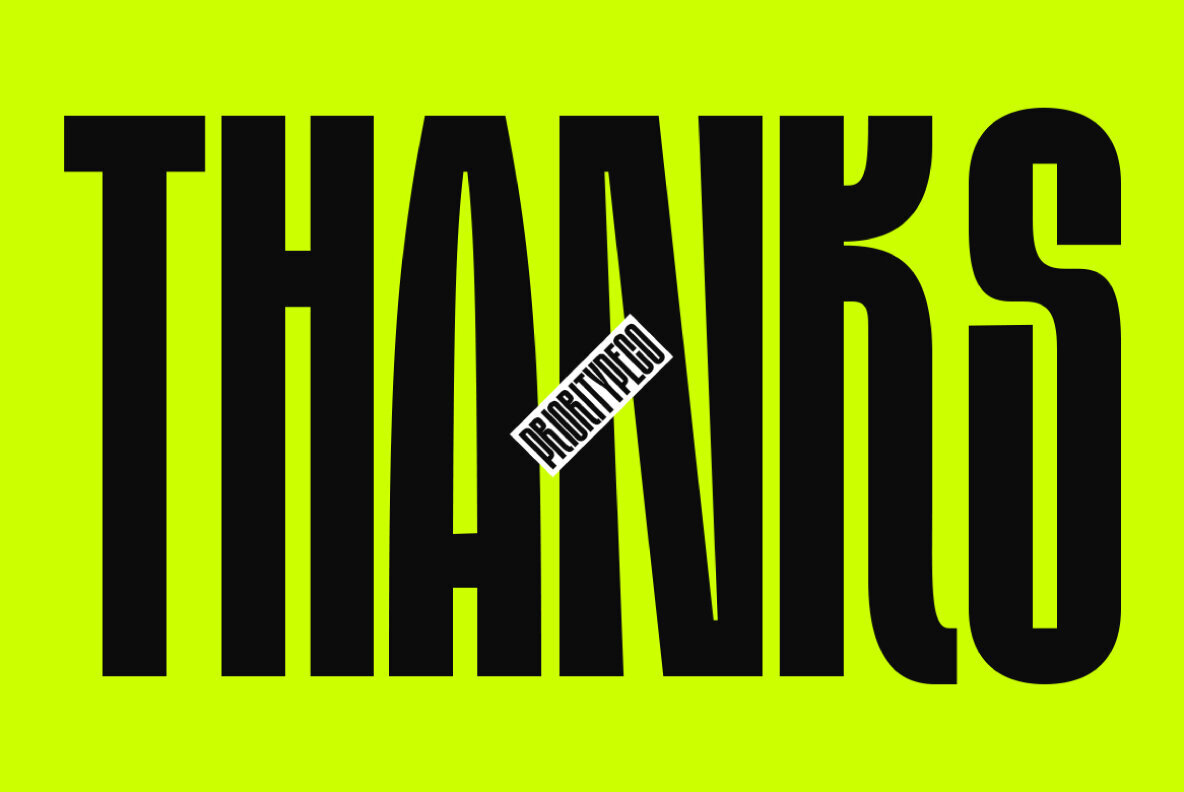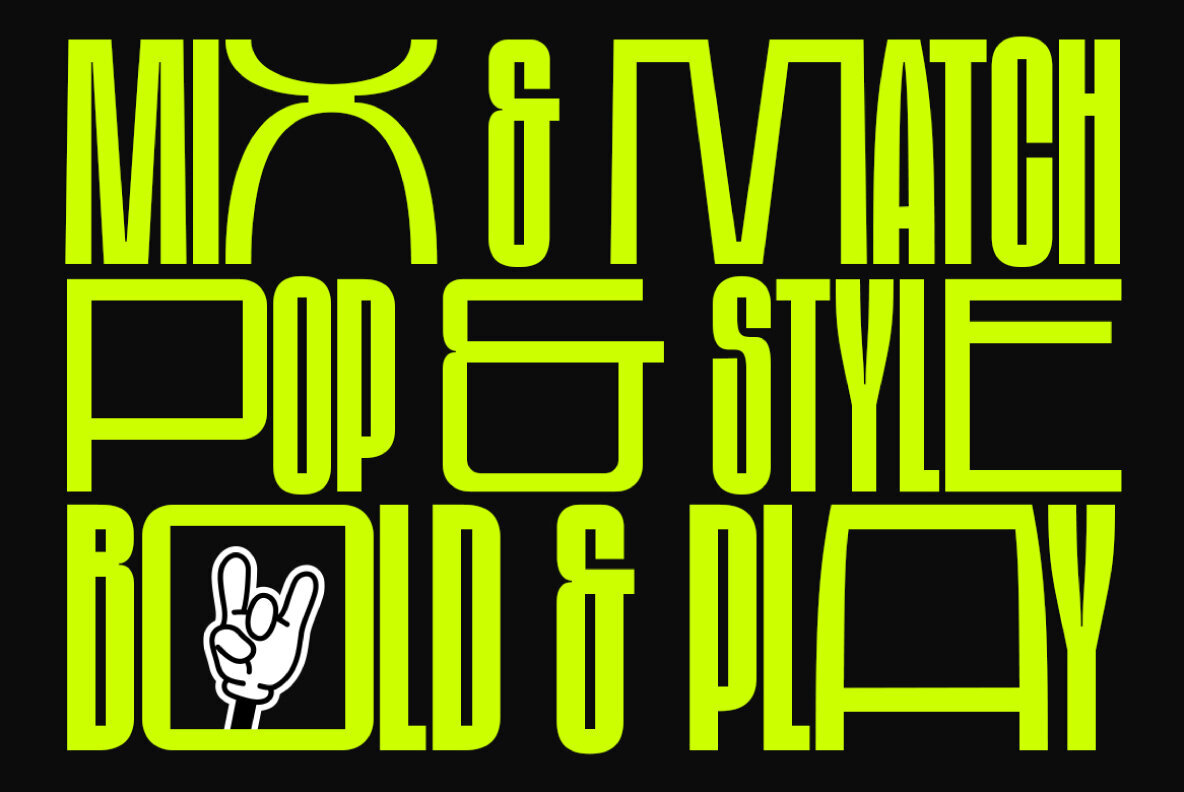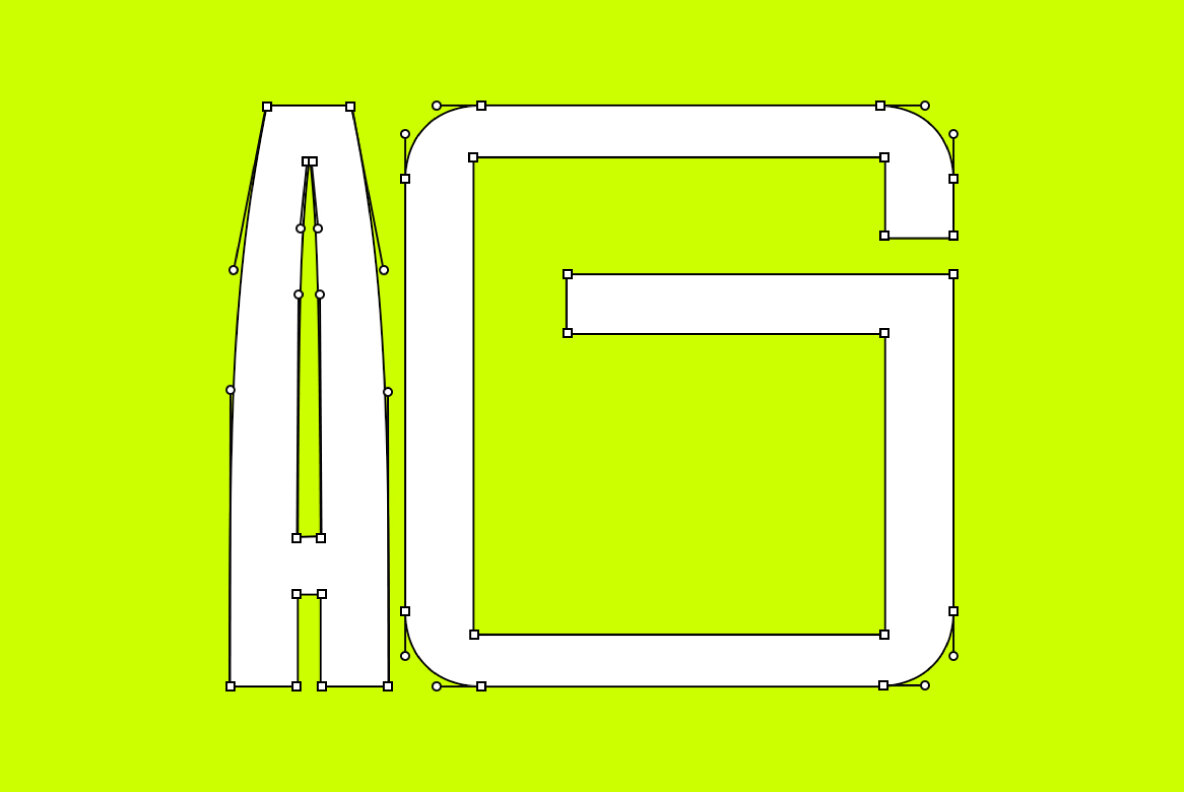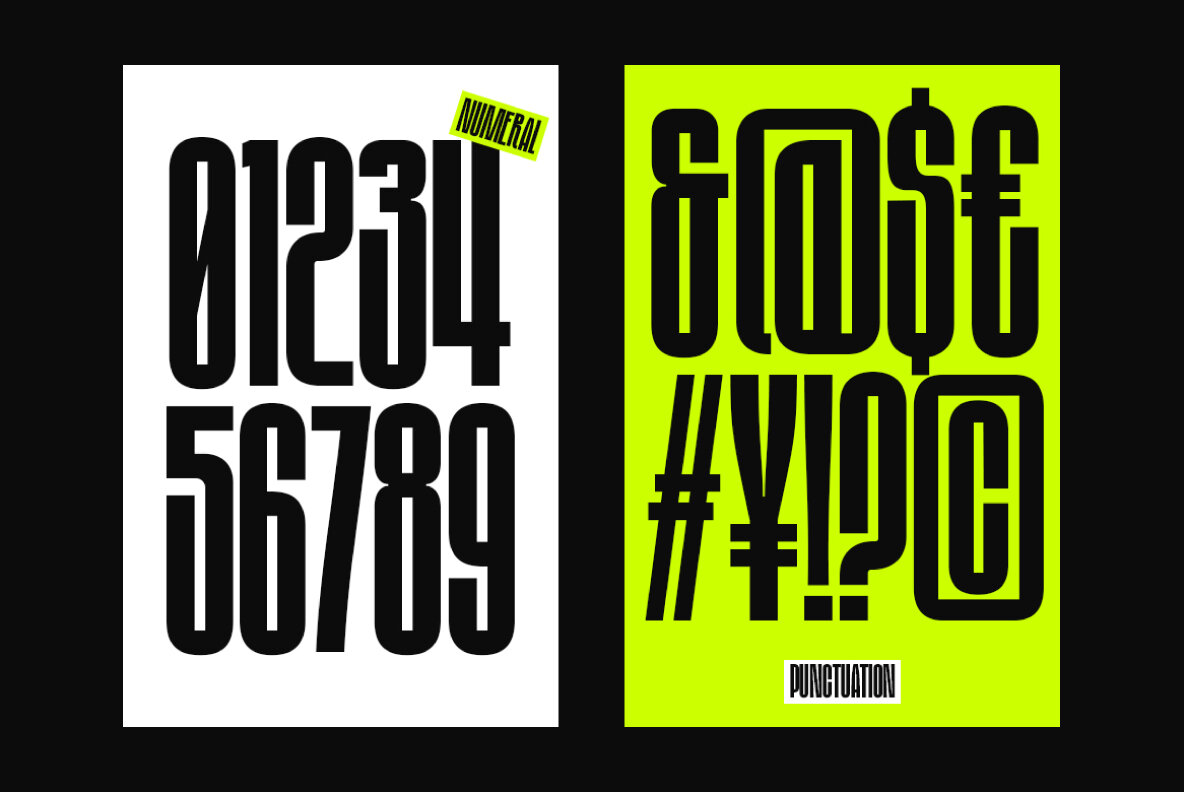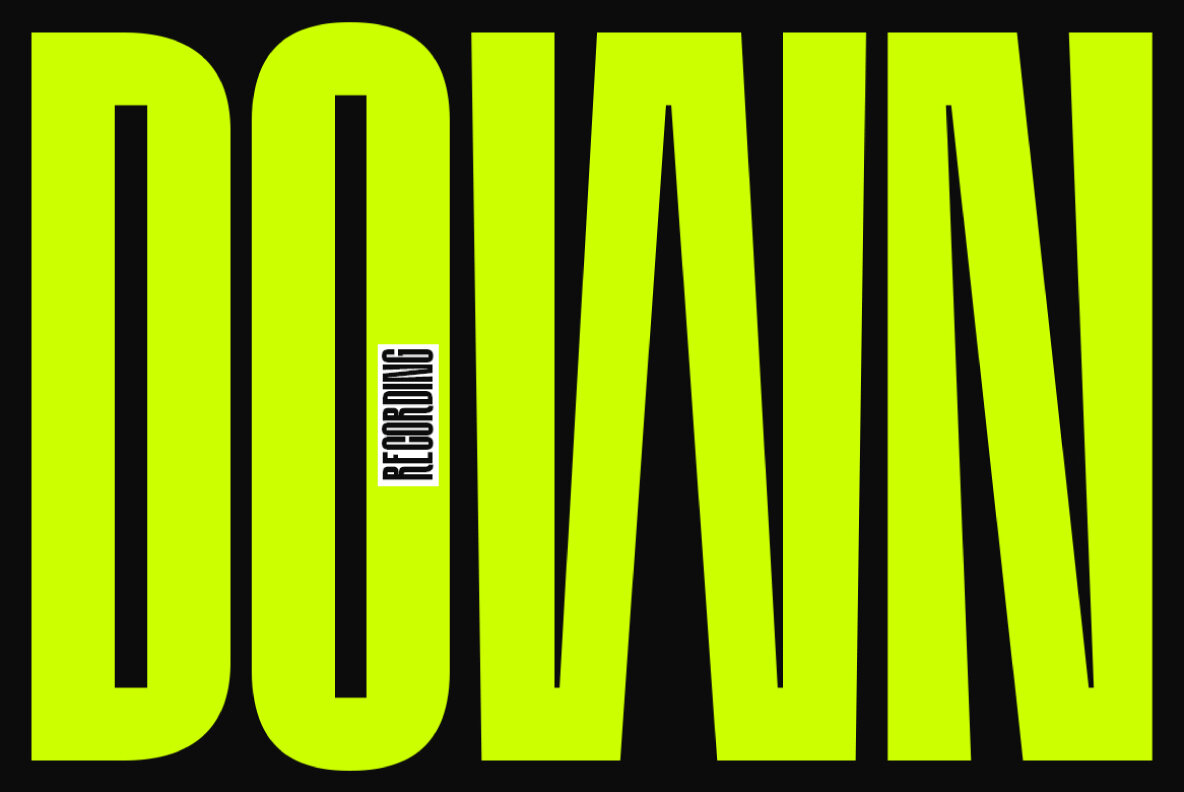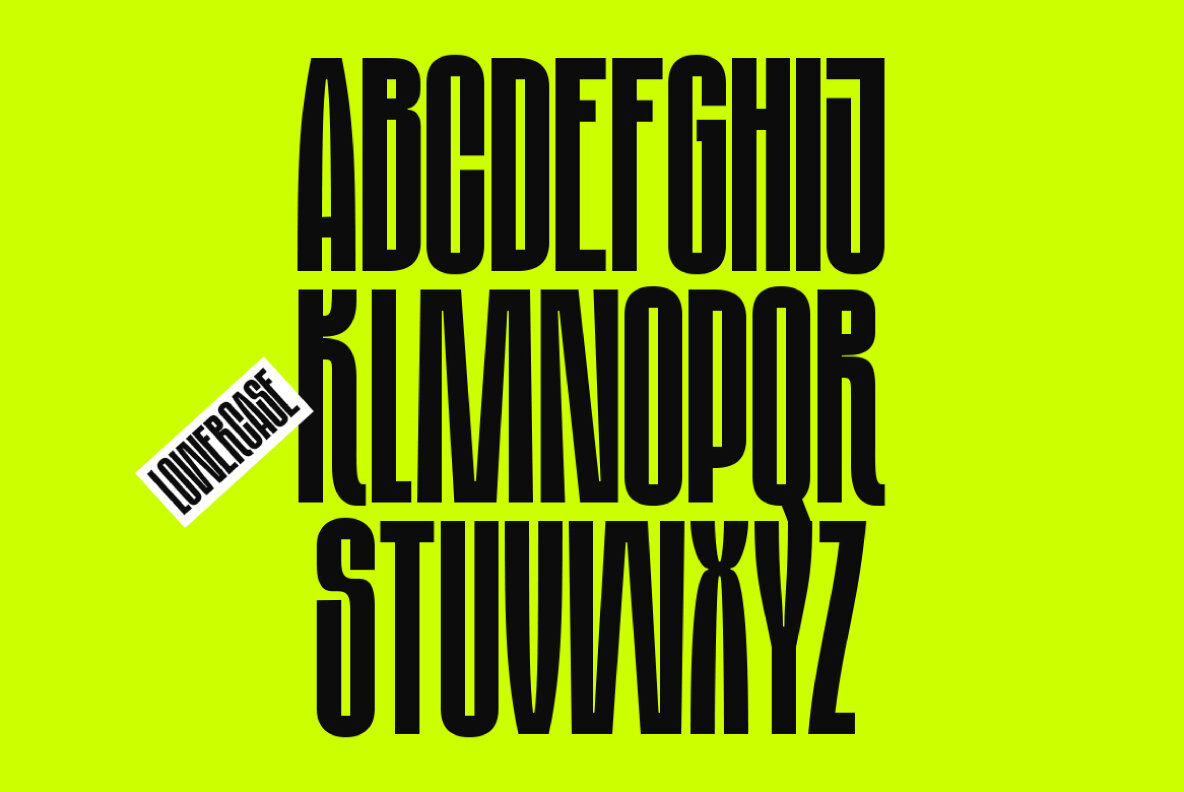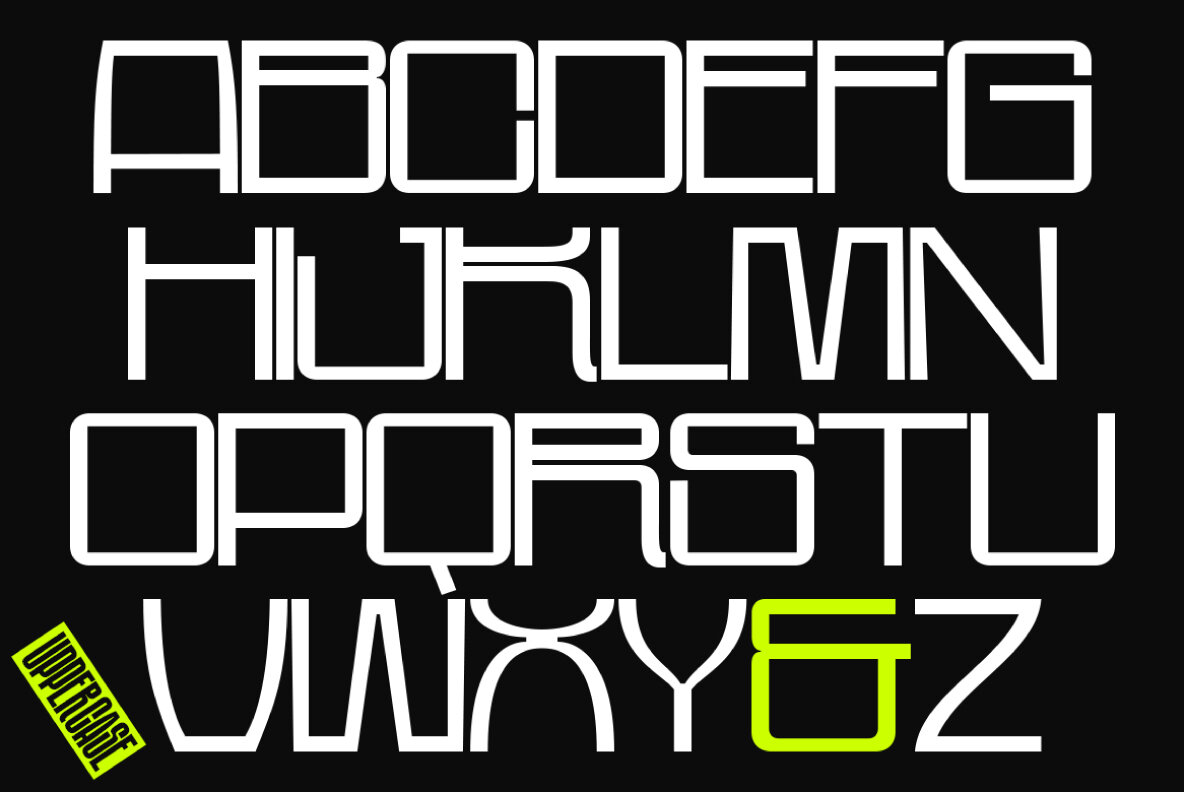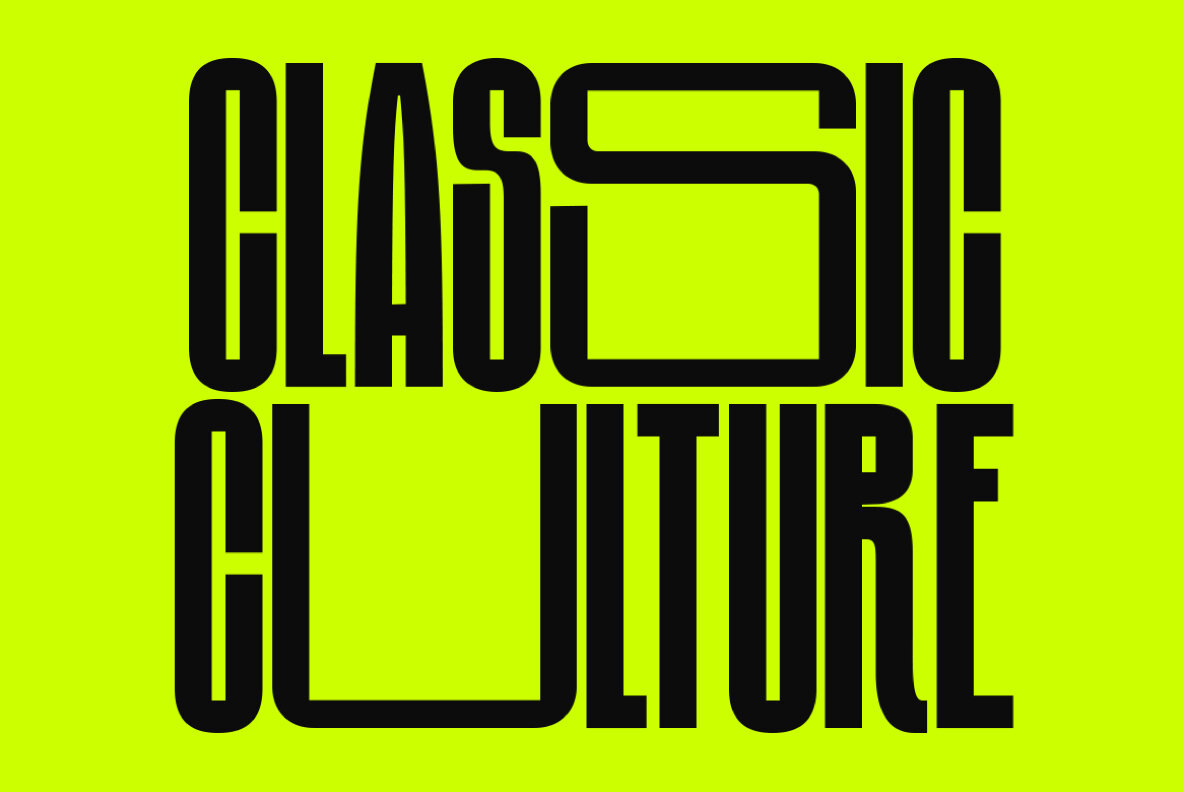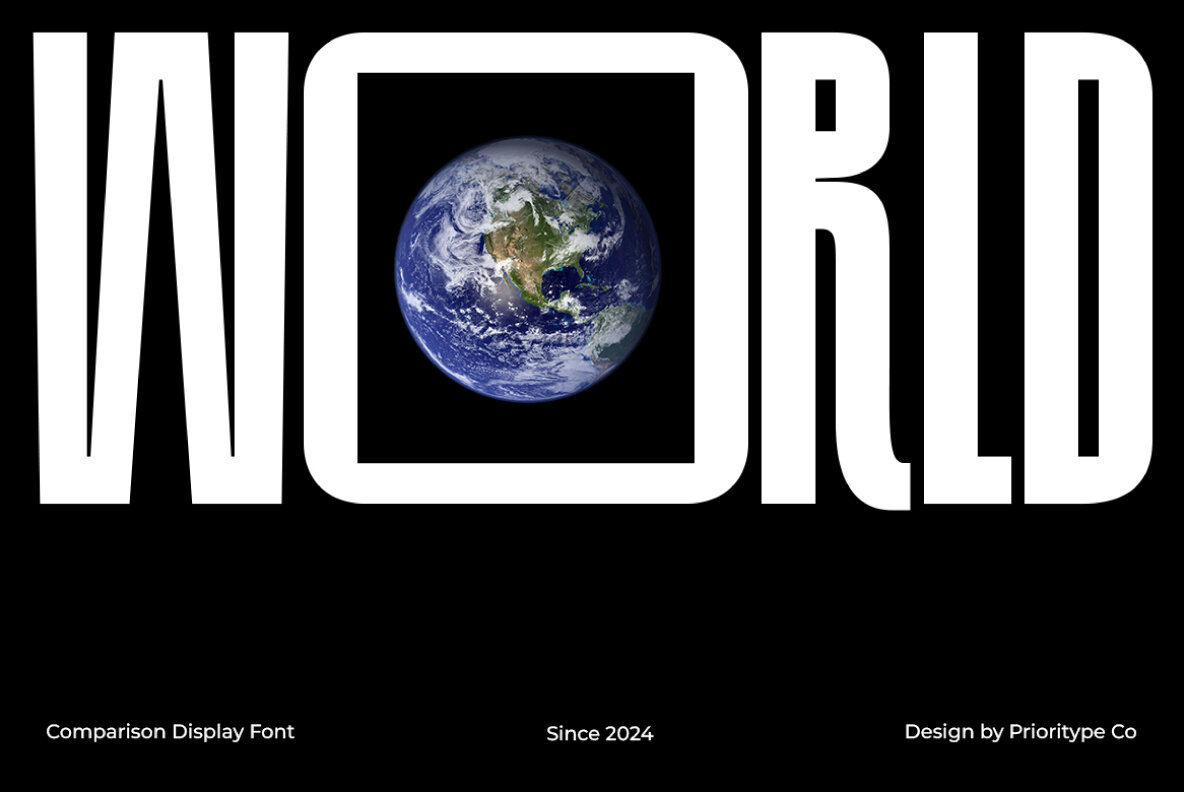
Comparison Display Font
Comparison Display
Introducing Comparison Display Font—a dynamic typeface that blends condensed and expanded sans-serif styles for a striking visual impact. This font showcases uppercase letters in an expansive, bold format, while lowercase letters feature a sleek, condensed design. Perfect for eye-catching posters, impactful branding, striking headlines, and memorable logos, Comparison Display provides a perfect balance of contrast and cohesion, enhancing the versatility and flair of any project.
Featuring uppercase and lowercase letters, numerals, punctuation, and extensive multilingual support, Comparison Display covers languages including Afrikaans, Albanian, Danish, Dutch, English, French, German, Italian, Spanish, Swedish, and many more. This comprehensive range ensures that your creative projects can communicate effectively with a global audience, making Comparison Display an essential addition to your design toolkit.